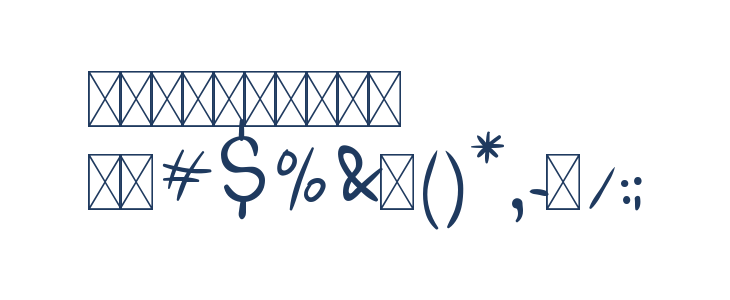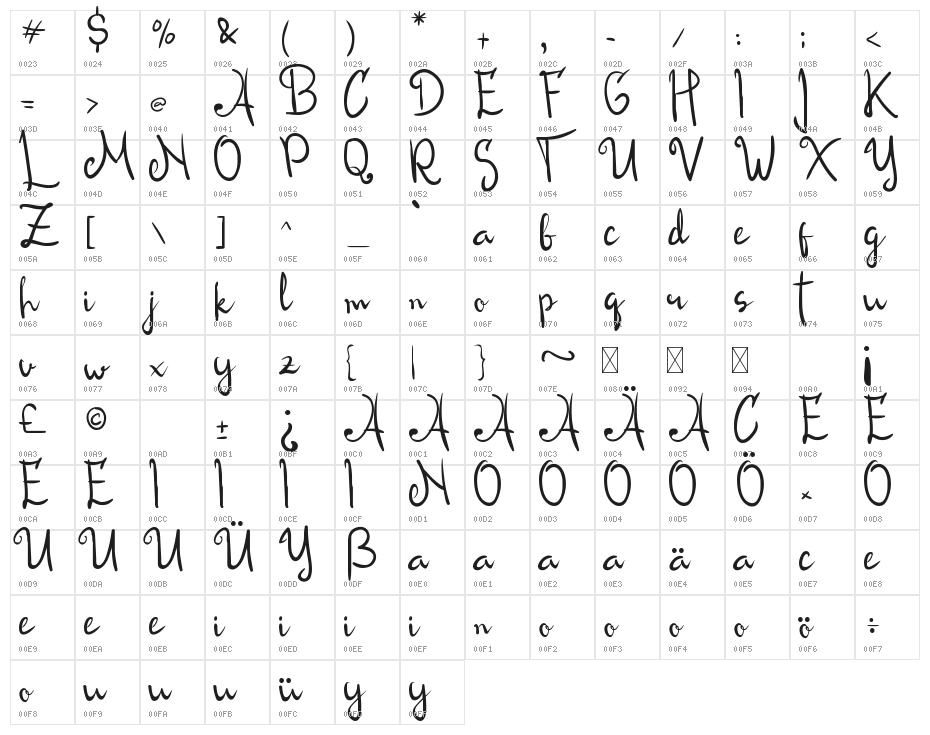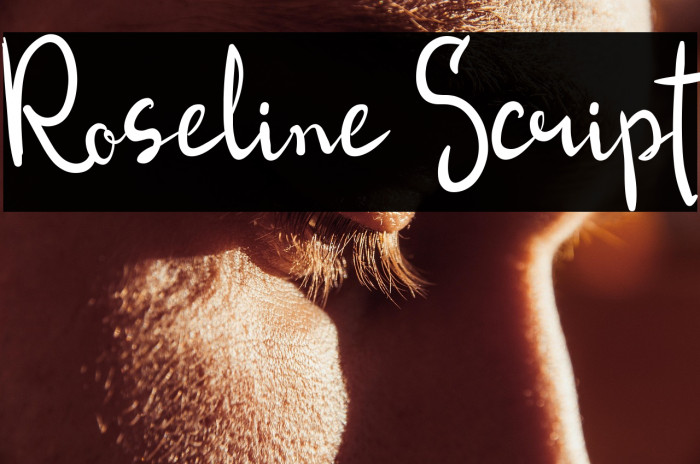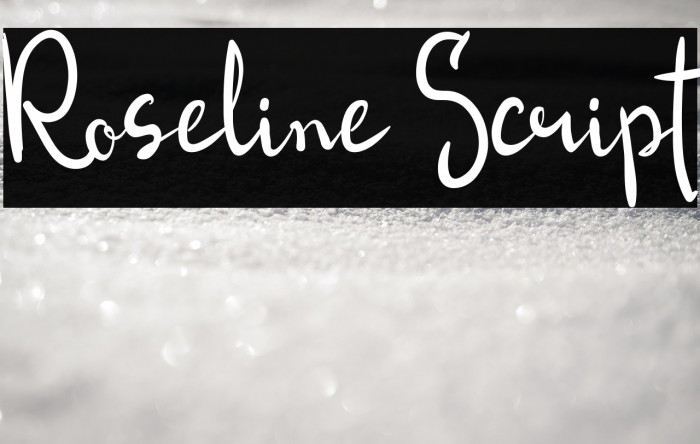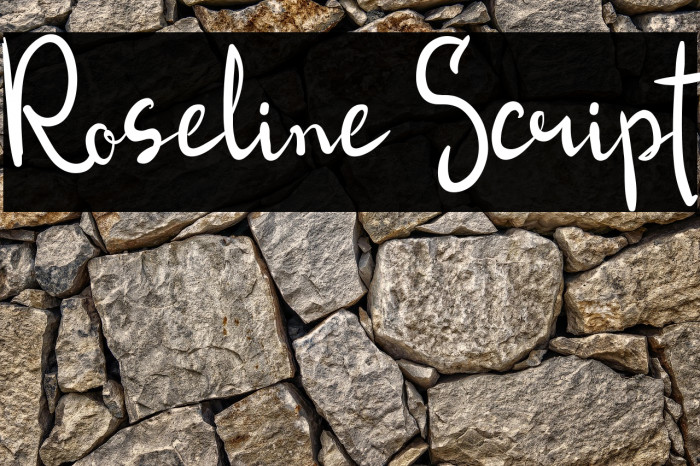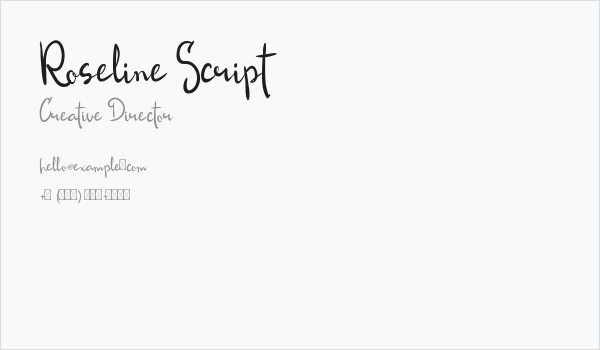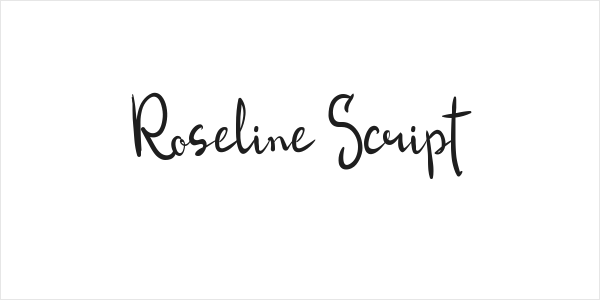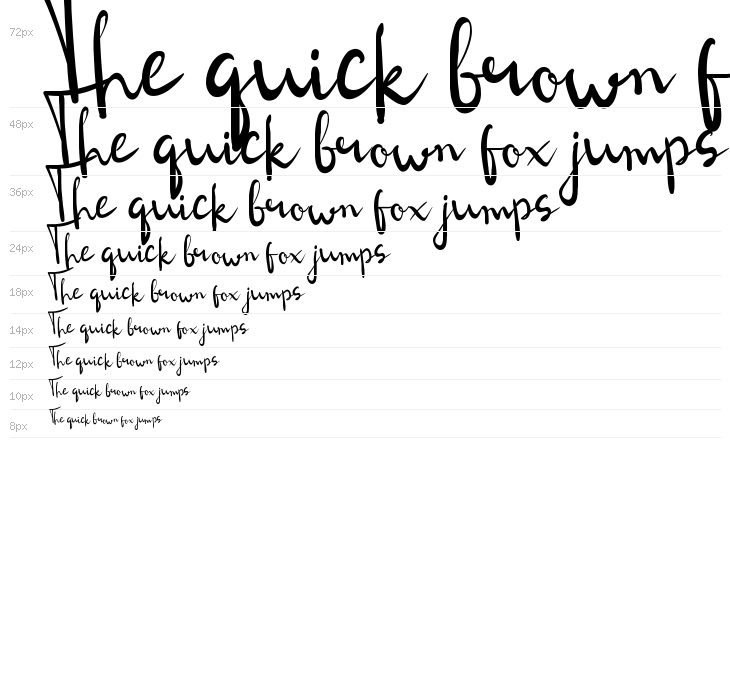
Roseline Script Font
Roseline Script Description
This font features a flowing, cursive style that mimics elegant handwriting. The uppercase letters are bold and slightly exaggerated, with sweeping curves and loops that give them a distinctive flair. The lowercase letters maintain a consistent flow, connecting smoothly in a way that enhances readability while preserving the script's artistic nature. The numerals and special characters are designed to match the overall aesthetic, with similar curves and strokes. This font is ideal for projects that require a personal touch, such as invitations, greeting cards, or branding materials that aim to convey sophistication and creativity.
| Overall Style | Elegant, Artistic |
| Use Case | Headlines, Invitations, Artistic projects |
| Proposed Projects | Ideal for wedding invitations, greeting cards, personal branding, and artistic projects. |